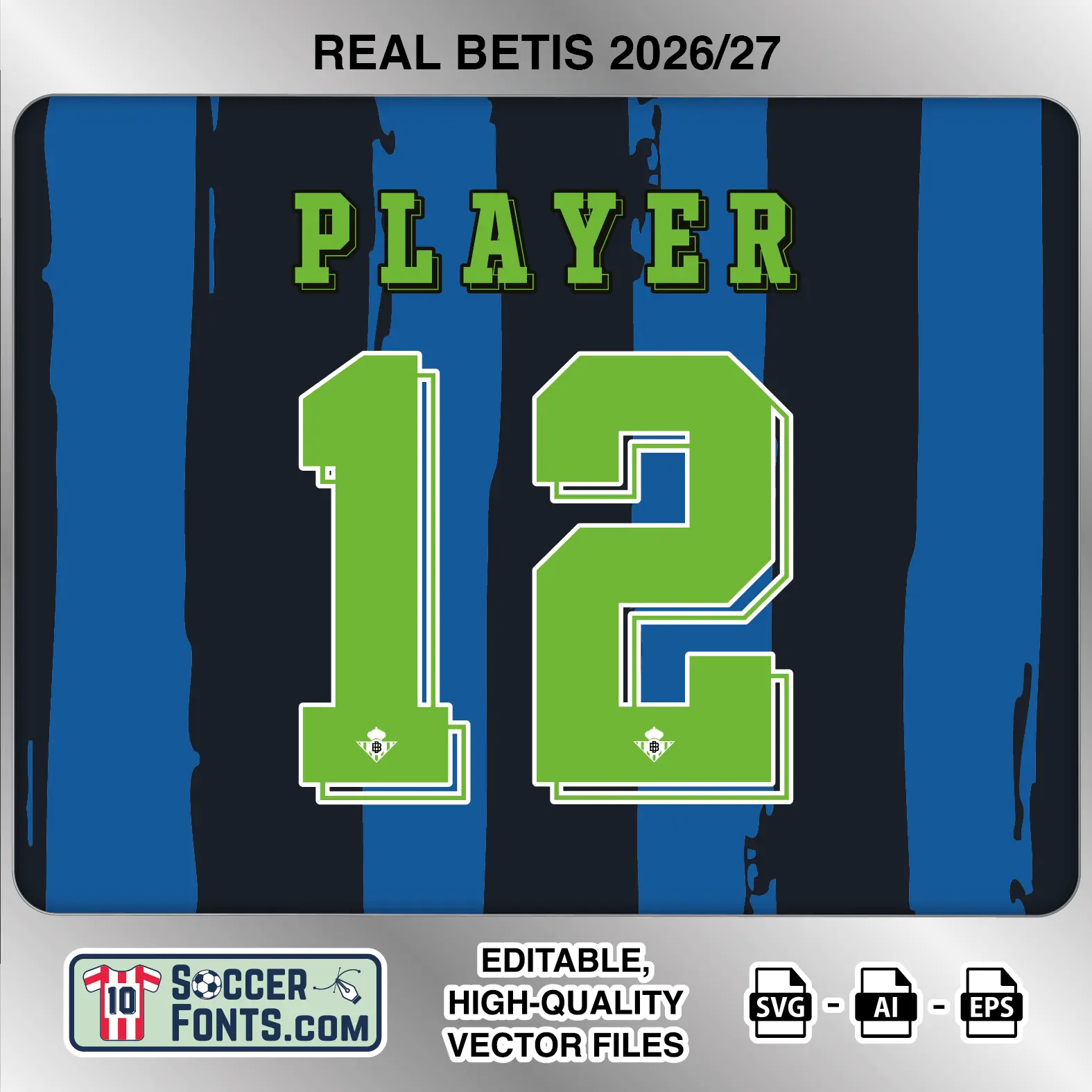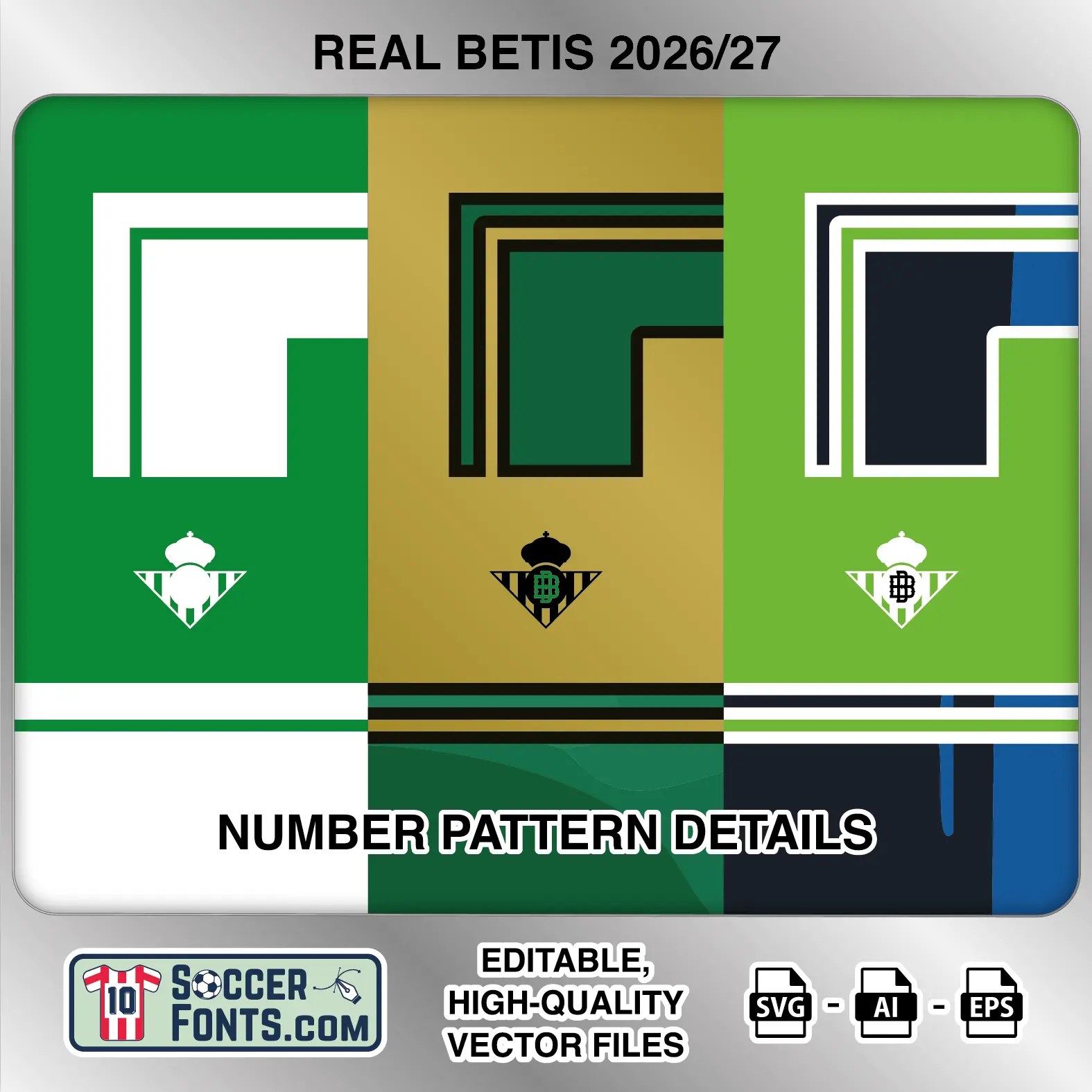
About Real Betis 2026-27 Font
Download Real Betis 2026-27 font, a complete editable soccer jersey lettering collection in vector format inspired by the home, away and third kit styles used during the 2026-27 football season. This football font artwork brings together three color treatments for Real Betis shirt recreations, custom jersey projects, football kit mockups and sports graphic design workflows.
Visual Identity of the Font Design :
The Real Betis lettering uses a bold collegiate-style construction with condensed uppercase characters, squared serifs and angular detailing. The numbers are tall and heavy, combining straight edges with clipped corners and narrow internal spaces. A distinctive offset outline runs along selected edges of both the letters and numerals, creating a layered appearance rather than a simple flat print. The Real Betis crest is positioned near the bottom of each numeral.
The home version is shown in green on a light background, with a fine green offset line extending beyond the main forms. The away treatment changes to metallic gold lettering and numbers against the dark green ornamental shirt design, accompanied by dark edging that increases the dimensional effect. The third version uses bright green forms on the blue-and-dark striped shirt, with a contrasting white outer edge and additional dark detailing. All three variants retain the same recognizable number structure while adapting the colors and outlines to their respective kits.
Context of 2026-27 Season for Real Betis :
The Real Betis 2026-27 Font belongs to a major European season for Los Verdiblancos, who returned to the UEFA Champions League after finishing fifth in Spain in 2025-26. Manuel Pellegrini remained in charge for the campaign, continuing a tenure that has established Betis as a regular presence in European competition.
Their Champions League return began with a 3-2 victory away to Lille on September 8, with Troy Parrott scoring the winning goal. Antony remains one of the key attacking figures, while the squad also includes Isco, Giovani Lo Celso, Pablo Fornals, Cucho Hernández, Abde Ezzalzouli, Héctor Bellerín and Marc Bartra. Summer additions such as Fran García further strengthened the group. The Real Betis 2026-27 Font therefore represents a kit era connected not only with another La Liga campaign but also with Champions League nights against European opposition. For collectors recreating all three shirts from this season, the Real Betis 2026-27 Font combines the home, away and third lettering treatments in one coordinated vector package.